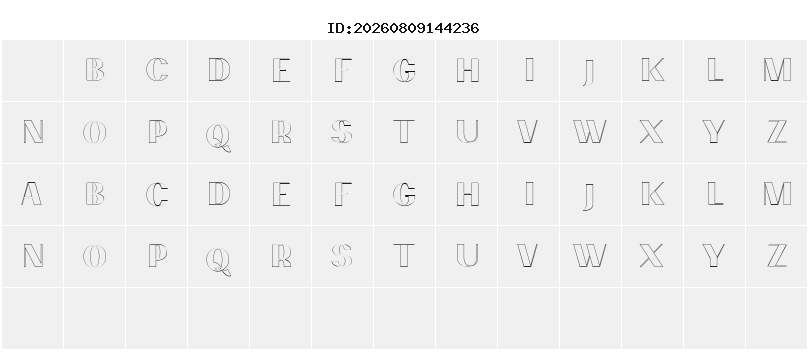
• Font Name: PassionSansPDcd
• Font Style: AccentOuter
• Full Font Name: PassionSansPDcd-AccentOuter
About PassionSansPDcd.ttf
PassionSansPDcd.ttf is a modern, elegant sans-serif font designed for ultimate readability and visual harmony. Perfect for branding, headlines, web design, and print materials.